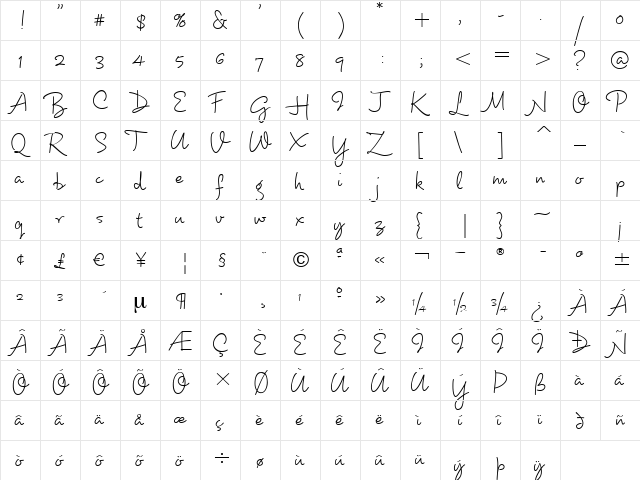
DartangnonITC TT Regular
| Foundry | International Typeface Corporation |
| Designer | Nick Cooke |
Design Context for DartangnonITC TT Typeface
DartangnonITC TT takes a measured approach to typography — its balanced proportions and neutral character make it a reliable workhorse for both digital and print work.